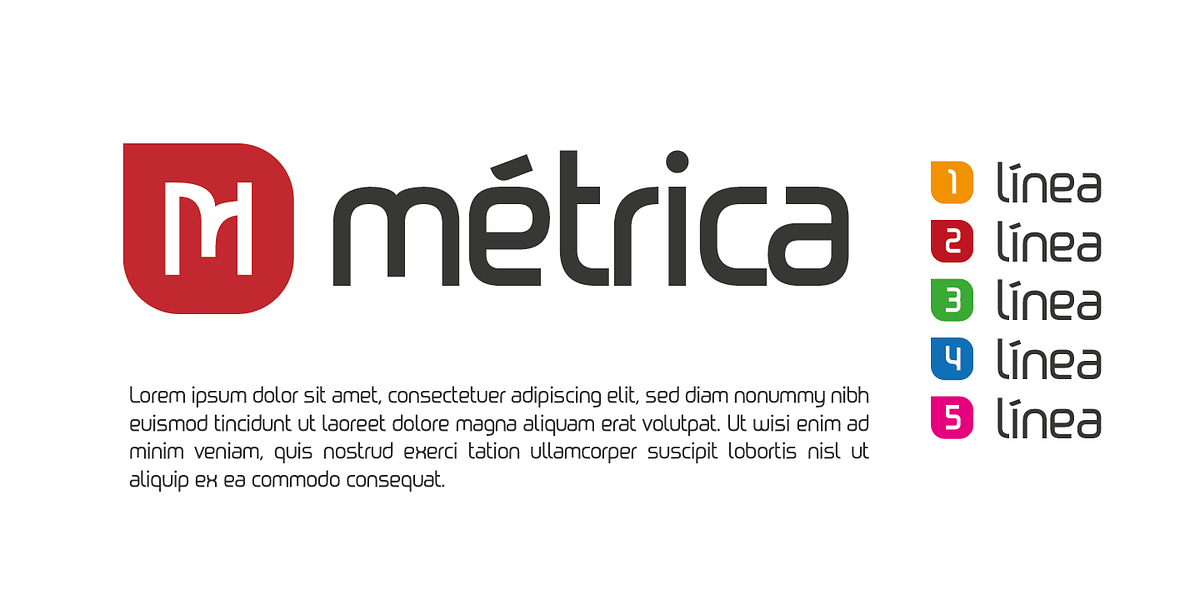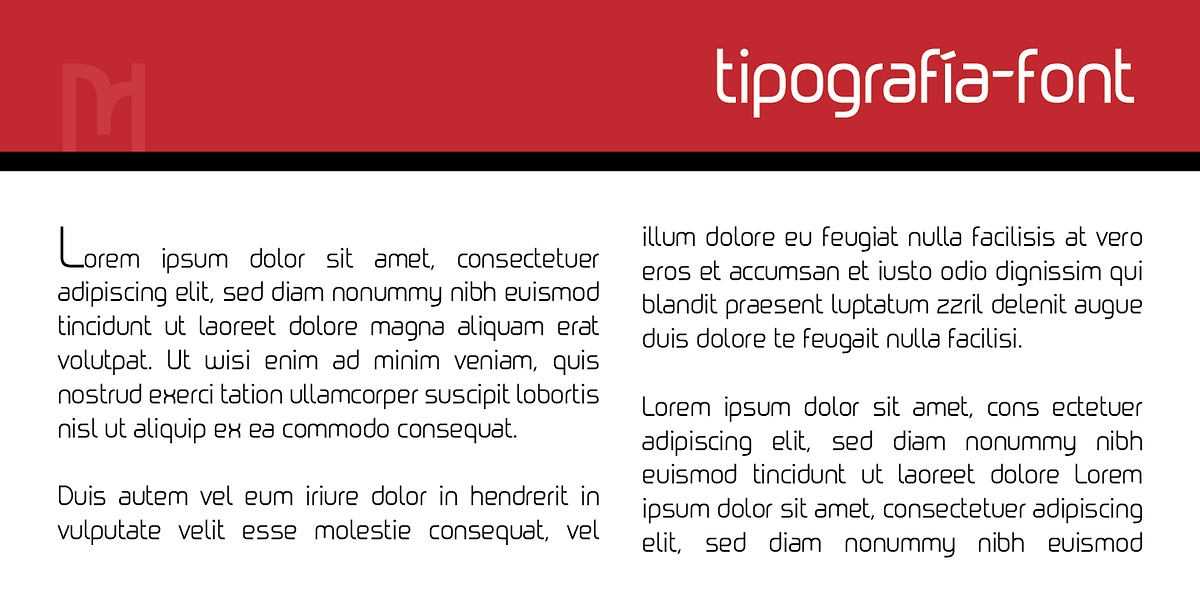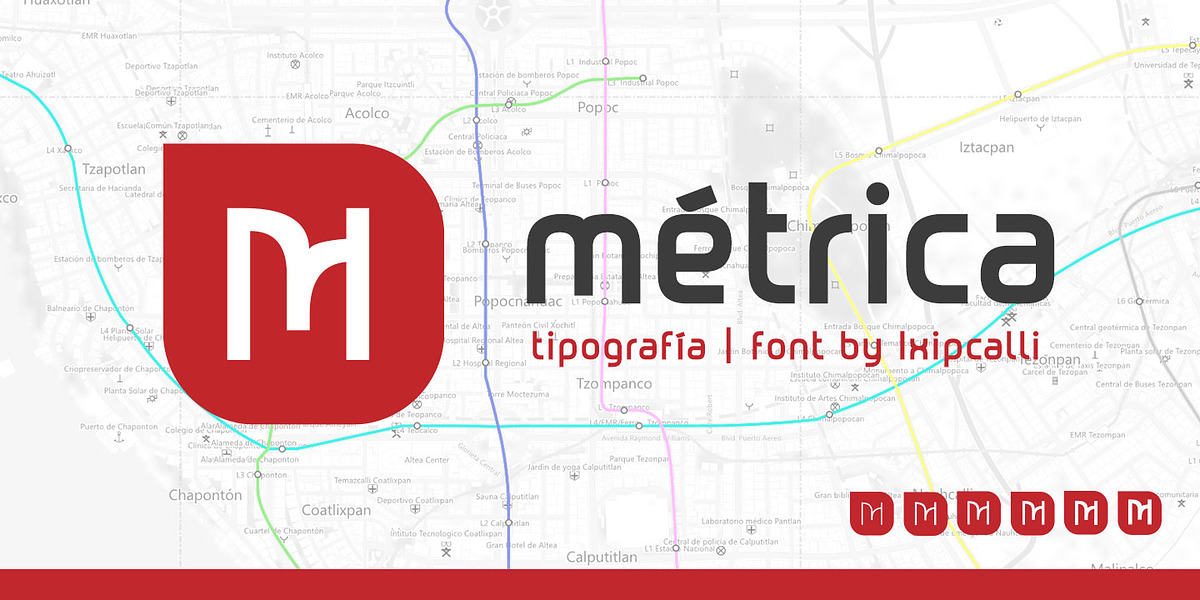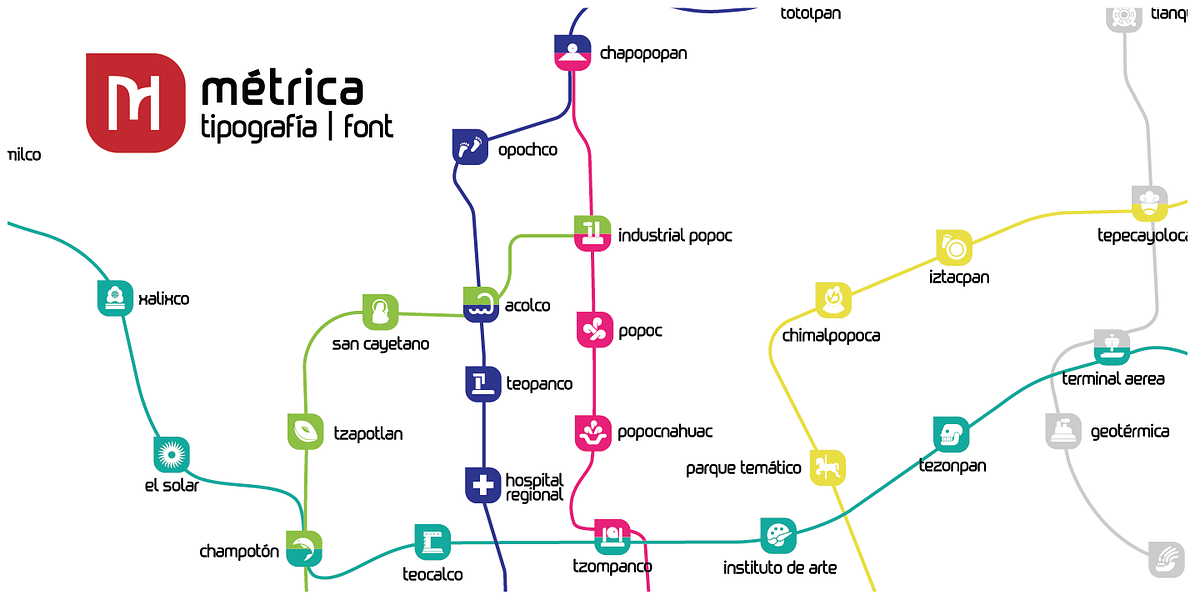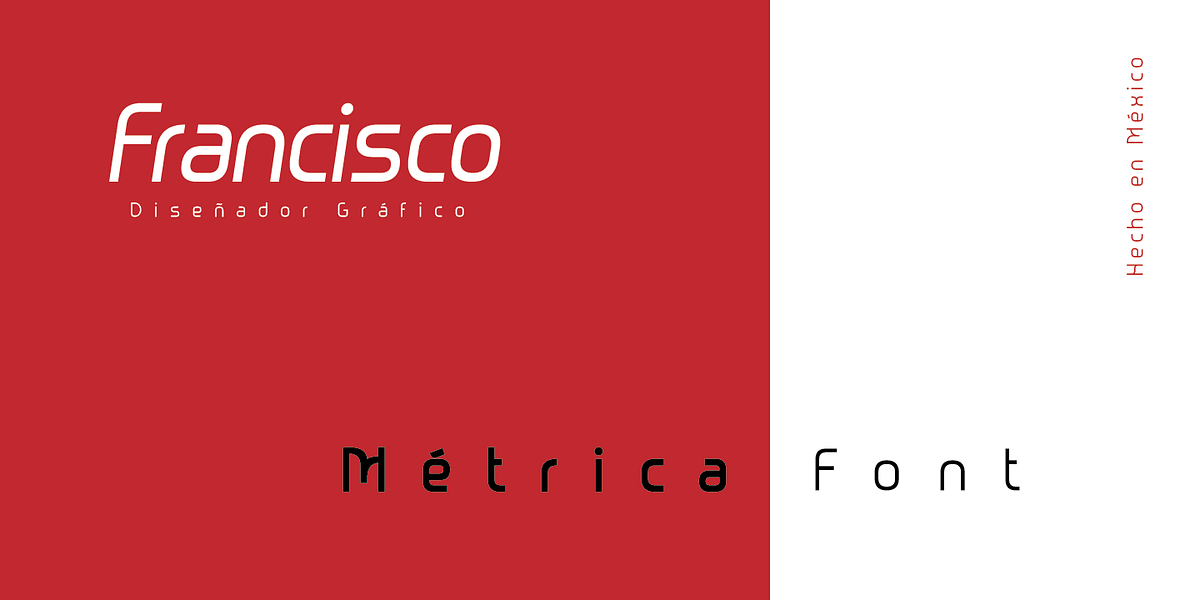
Metrica
Métrica was inspired by a modern, easy-to-read style for use in a transportation system. It has not yet been officially adopted for this purpose, so Métrica hopes to become the typeface of a common transportation system. The Métrica family has twelve styles distributed across six weights and six italic forms.